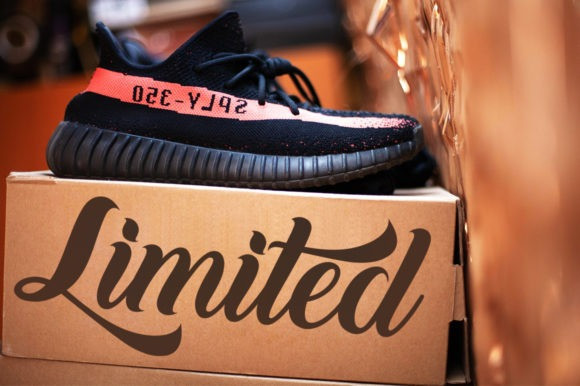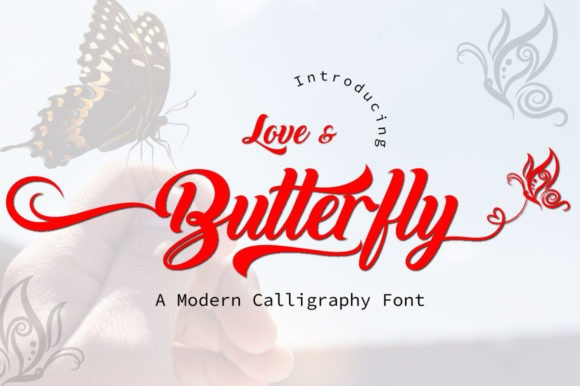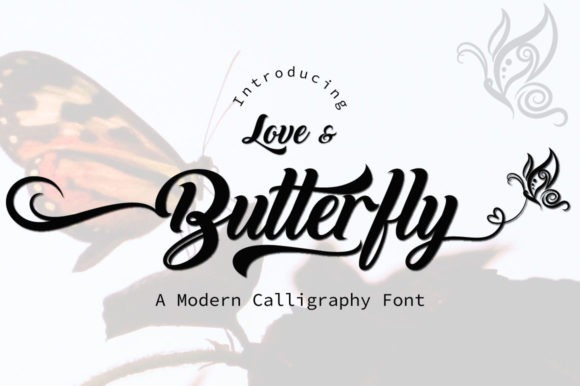
Love And Butterfly Font
Love and Butterfly Calligraphy Font is a delicate and fashionable script font. It is perfect for any branding project such as logos, t-shirt printing, creative products, and more. It will look extraordinary in a variety of contexts. This font is PUA encoded which means you can access all of the glyphs and swashes with ease!